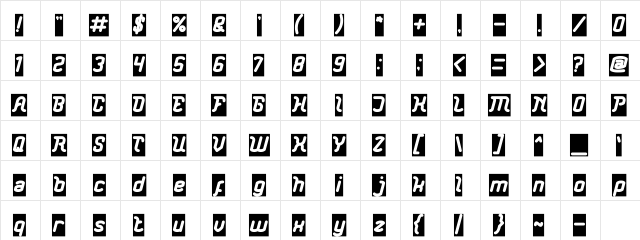
Big Mountain-Inverse Regular Font Preview
Big Mountain-Inverse Regular
Big Mountain-Inverse Regular Font Details
Design Context for Big Mountain-Inverse Typeface
Big Mountain-Inverse is a composed and adaptable typeface that performs quietly and consistently across a wide range of design contexts.